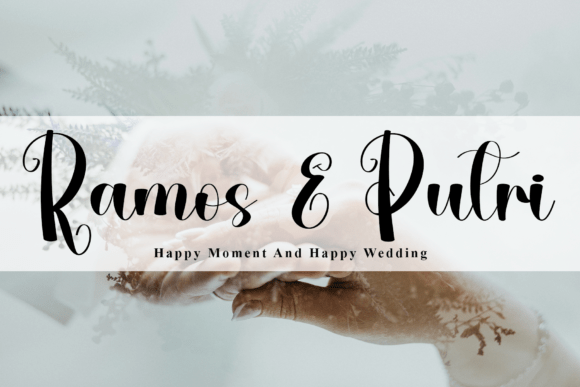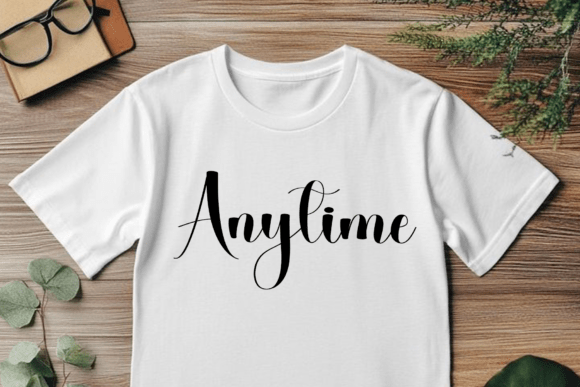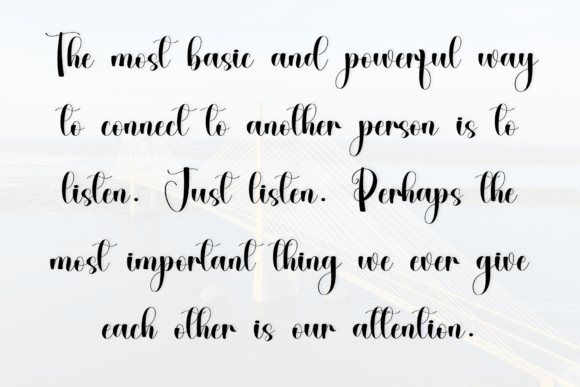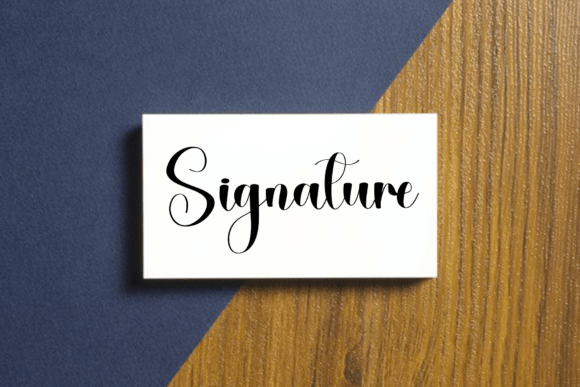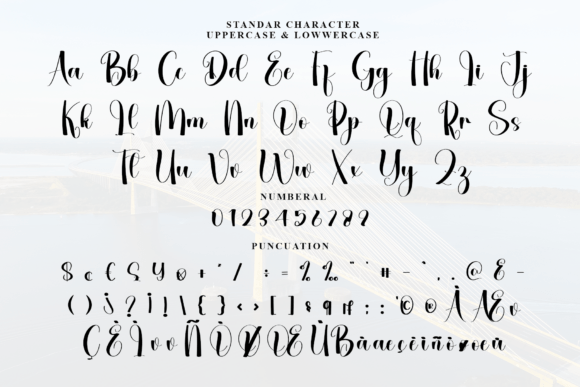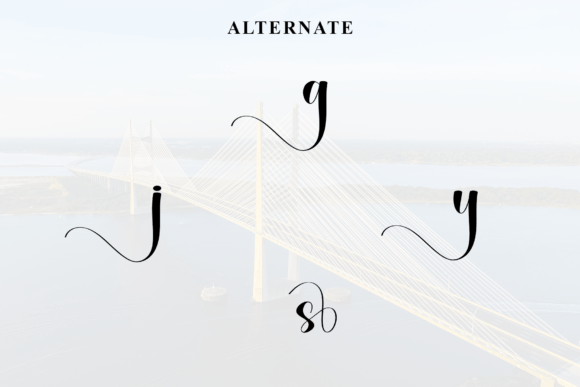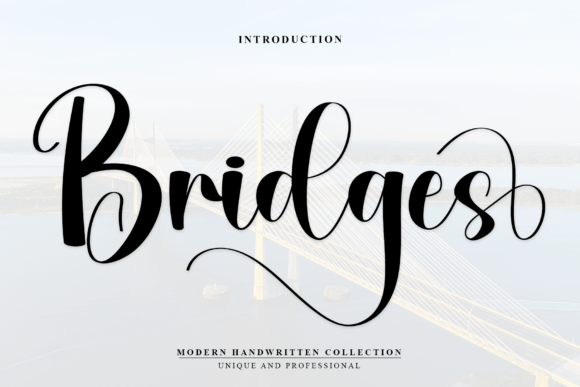
Bridges Font: Elevate Your Designs with Elegant Handwritten Charm
In the world of typography, few fonts capture the essence of elegance and sophistication as beautifully as Bridges Font. This stunning handwritten font is designed to bring a touch of softness and grace to your projects, making it perfect for designers and crafters looking to add a delicate, feminine touch to their work. In this article, we’ll dive into the world of Bridges Font, exploring its unique features, uses, and benefits, and why it’s become a go-to choice for creatives.
The Beauty of Bridges Font
Bridges Font is an elegant handwritten font that exudes softness and grace. With its gentle strokes and feminine touch, this font captures the essence of a handwritten signature, adding a delicate touch to your projects. The font’s unique characteristics make it perfect for a wide range of applications, from invitations and greeting cards to personal branding and digital marketing materials.
Key Features of Bridges Font
- Elegant Handwritten Style: Bridges Font boasts a beautiful, handwritten style that adds a touch of sophistication to any project.
- Feminine Touch: The font’s gentle strokes and curves give it a distinctly feminine feel, making it perfect for projects that require a delicate touch.
- Timeless Charm: Bridges Font has a timeless quality that ensures your designs will remain stylish and relevant for years to come.
- Versatile: This font is suitable for a wide range of applications, from digital marketing materials to print projects.
Uses for Bridges Font
Bridges Font is an incredibly versatile font that can be used in a variety of contexts. Here are some of the most popular uses for this beautiful font:
- Invitations: Add a touch of elegance to your wedding invitations, birthday party invites, or any other special occasion with Bridges Font.
- Greeting Cards: Create beautiful, heartfelt greeting cards for any occasion with this stunning font.
- Personal Branding: Use Bridges Font to create a cohesive brand identity that exudes sophistication and elegance.
- Digital Marketing Materials: Add a touch of class to your digital marketing materials, such as social media graphics, email newsletters, and blog posts.
Benefits of Using Bridges Font
So why choose Bridges Font for your next project? Here are just a few benefits of using this beautiful font:
- Instant Elegance: Bridges Font adds an instant touch of elegance to any project, making it perfect for designers and crafters looking to create sophisticated designs.
- Easy to Read: The font’s clear, flowing script makes it easy to read, even at small sizes.
- Customizable: Bridges Font can be easily customized to fit your project’s specific needs, from adjusting the font size to adding your own unique touches.
- Time-Saving: With Bridges Font, you can create beautiful, professional-looking designs in a fraction of the time it would take to create them from scratch.
Tips for Using Bridges Font
To get the most out of Bridges Font, here are a few tips to keep in mind:
- Pair with Other Fonts: Bridges Font pairs beautifully with other fonts, such as sans-serif fonts or serif fonts. Experiment with different combinations to find the perfect look for your project.
- Adjust Font Size: Adjust the font size to create visual interest and hierarchy in your design.
- Add Your Own Touch: Don’t be afraid to add your own unique touch to Bridges Font. Experiment with different colors, textures, and effects to make the font truly yours.
Bridges Font is a stunning handwritten font that adds a touch of elegance and sophistication to any project. With its gentle strokes, feminine touch, and timeless charm, this font is perfect for designers and crafters looking to create beautiful, professional-looking designs. Whether you’re creating invitations, greeting cards, or digital marketing materials, Bridges Font is sure to become a go-to choice for your typography needs.